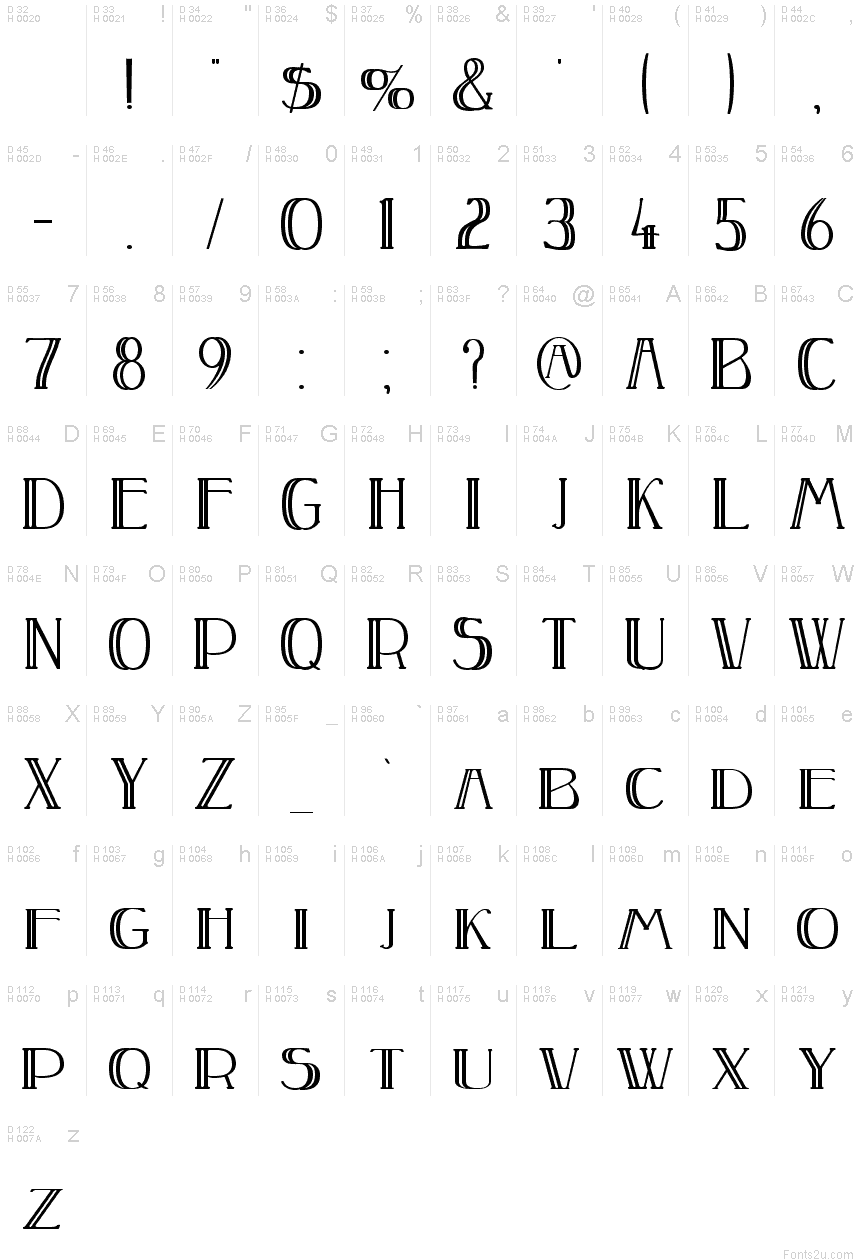
Peake Doubled by PJL is a free Art Deco display font with tall capitals and razor-thin hairlines. Its feature is the double-line treatment along upright strokes, giving the lettering an engraved, architectural look. Broad curves and sharp diagonals keep the forms dramatic.
For fashion branding and bar signage, the proportions suggest 1920s glamour, yet the outlined construction also suits theatrical posters and invitations. It is most convincing in elegant display work built around its decorative capitals.